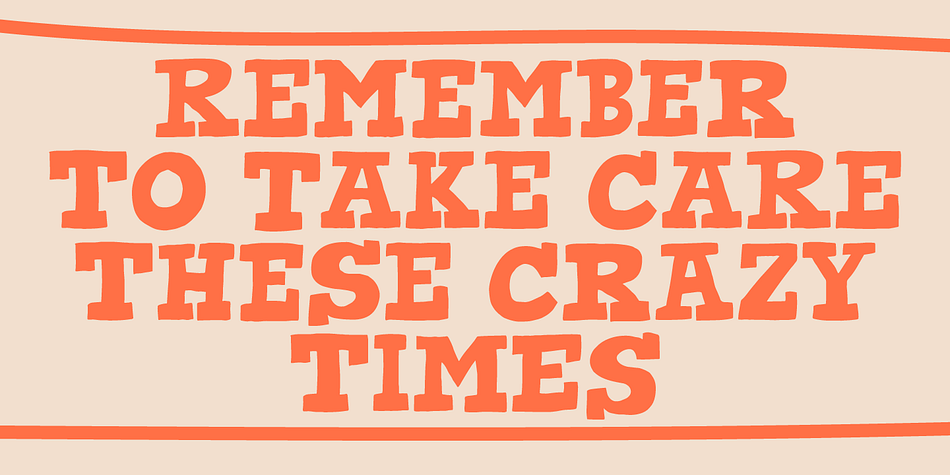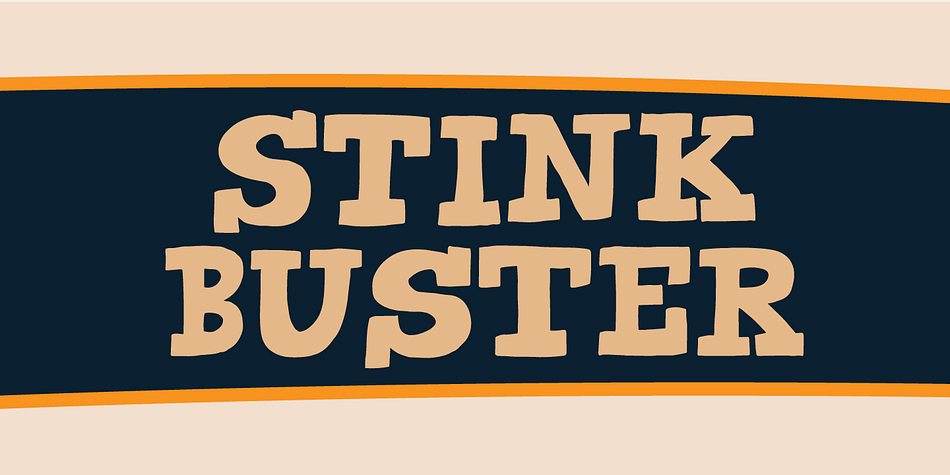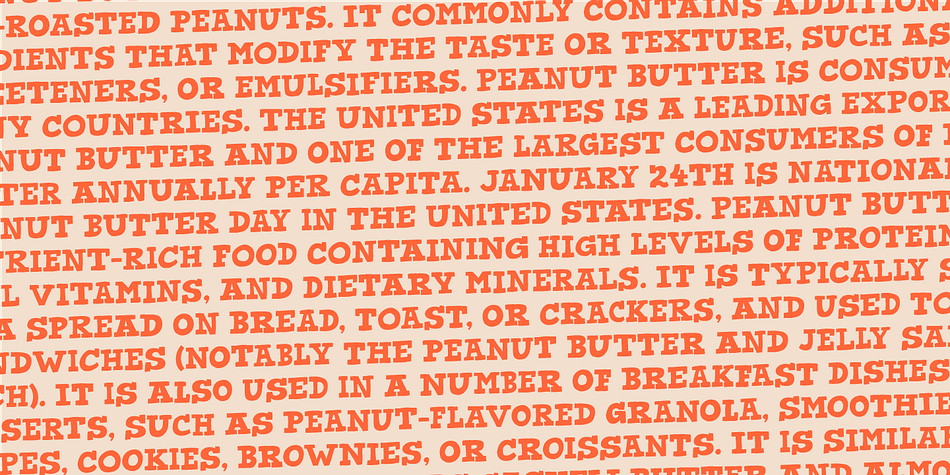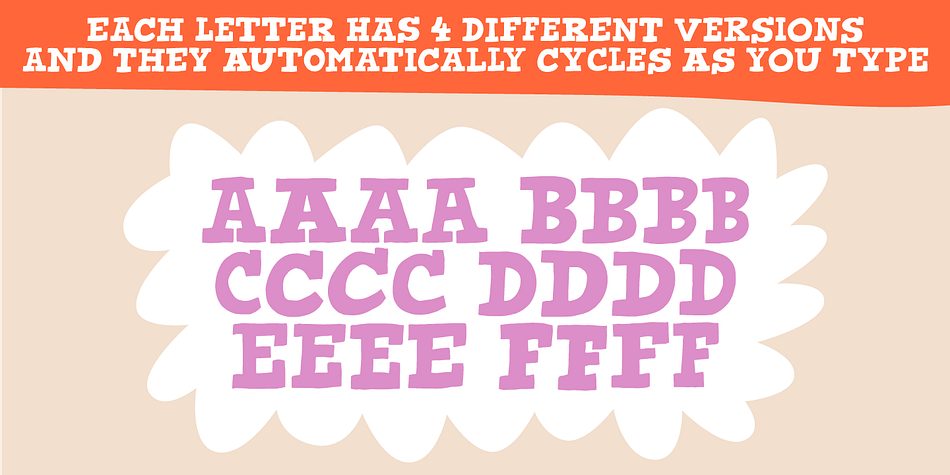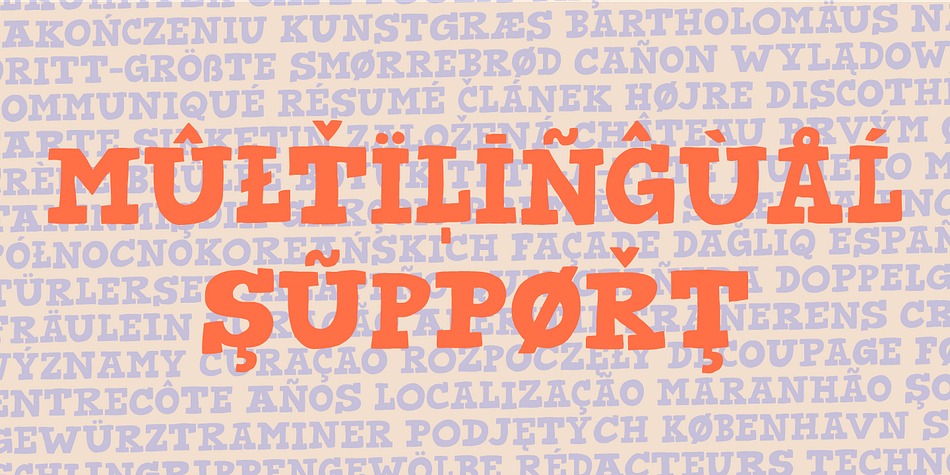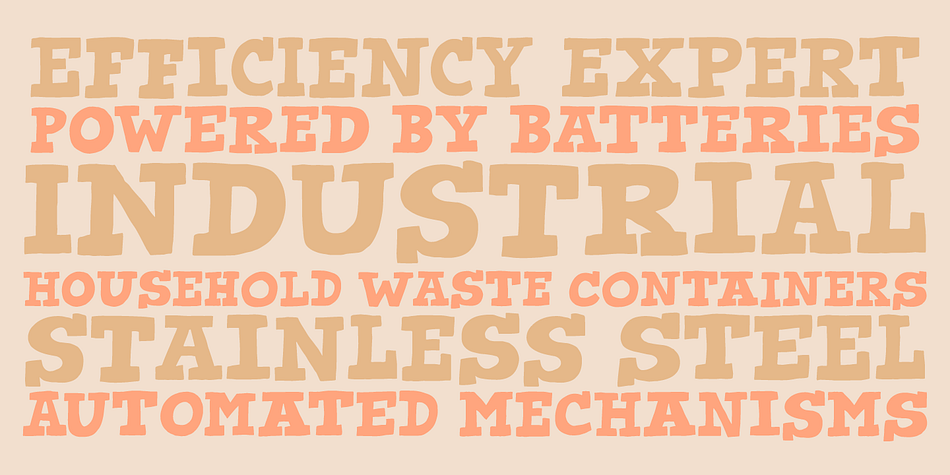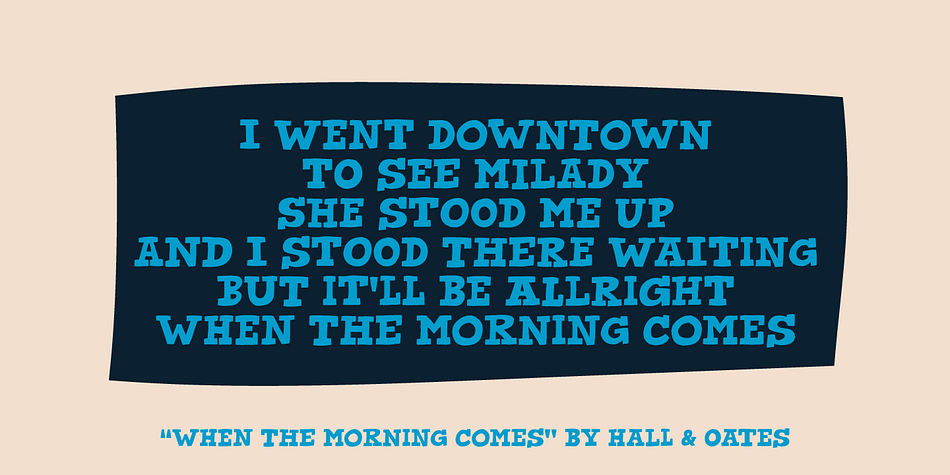
Stink Buster
Designed by Jakob Fischer, Stink Buster is a hand display and slab serif font family. This typeface has two styles and was published by Bogstav.
There’s nothing stinky about this font, don’t worry! But what’s is up with Stink Buster is a whole lot of serifs gone bad! Each letter is loosely based upon the classic slab serif style, but influence by grafitti and comics just made them crooked and off the grid.
But despite that, the font works great if you have a message that you want shouted out loud!